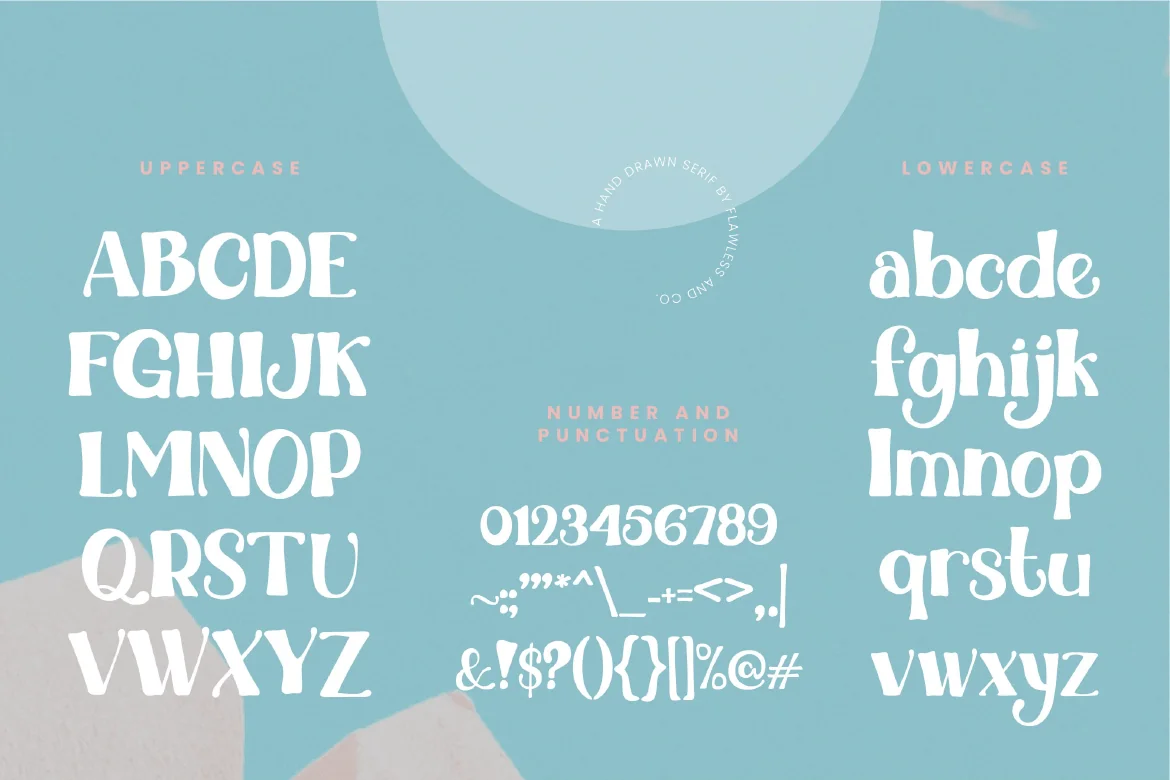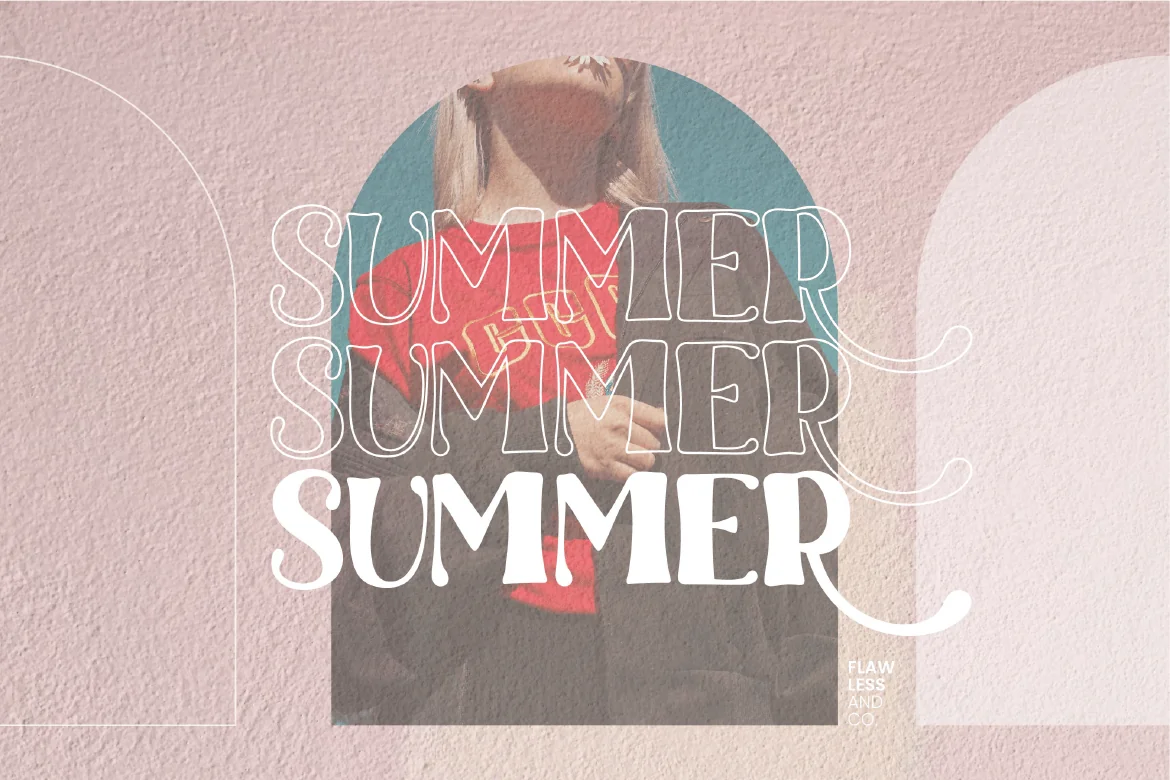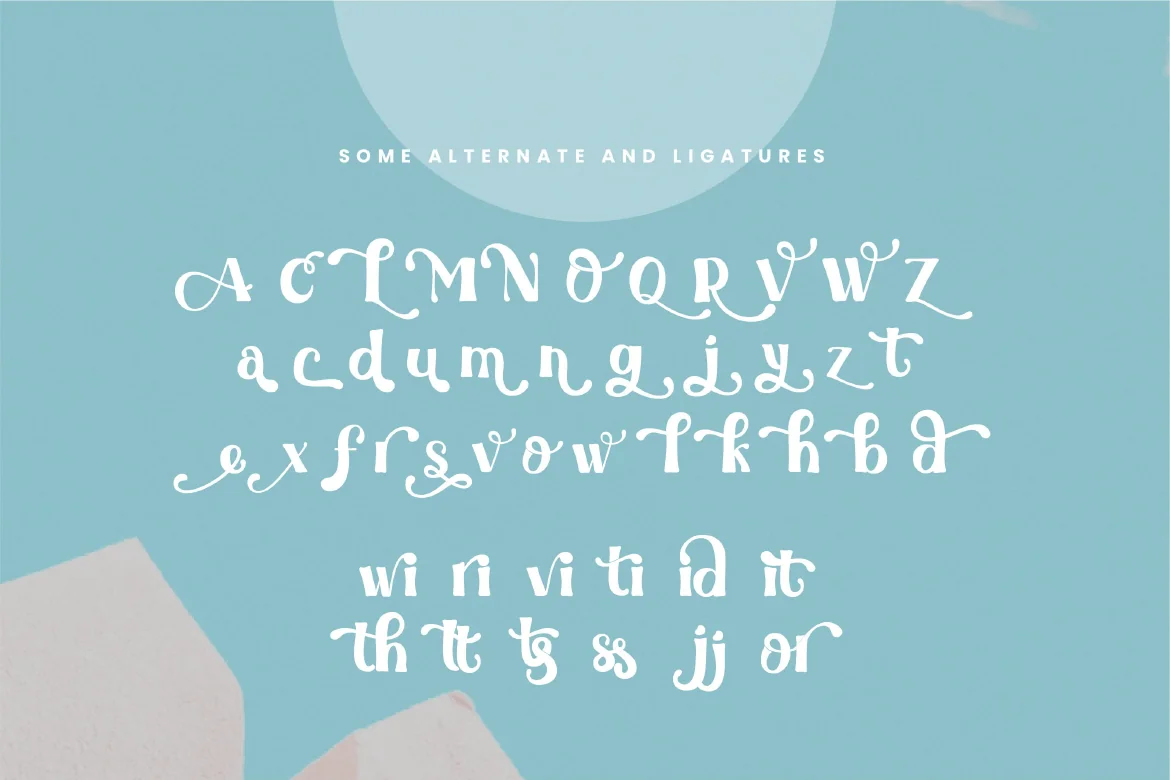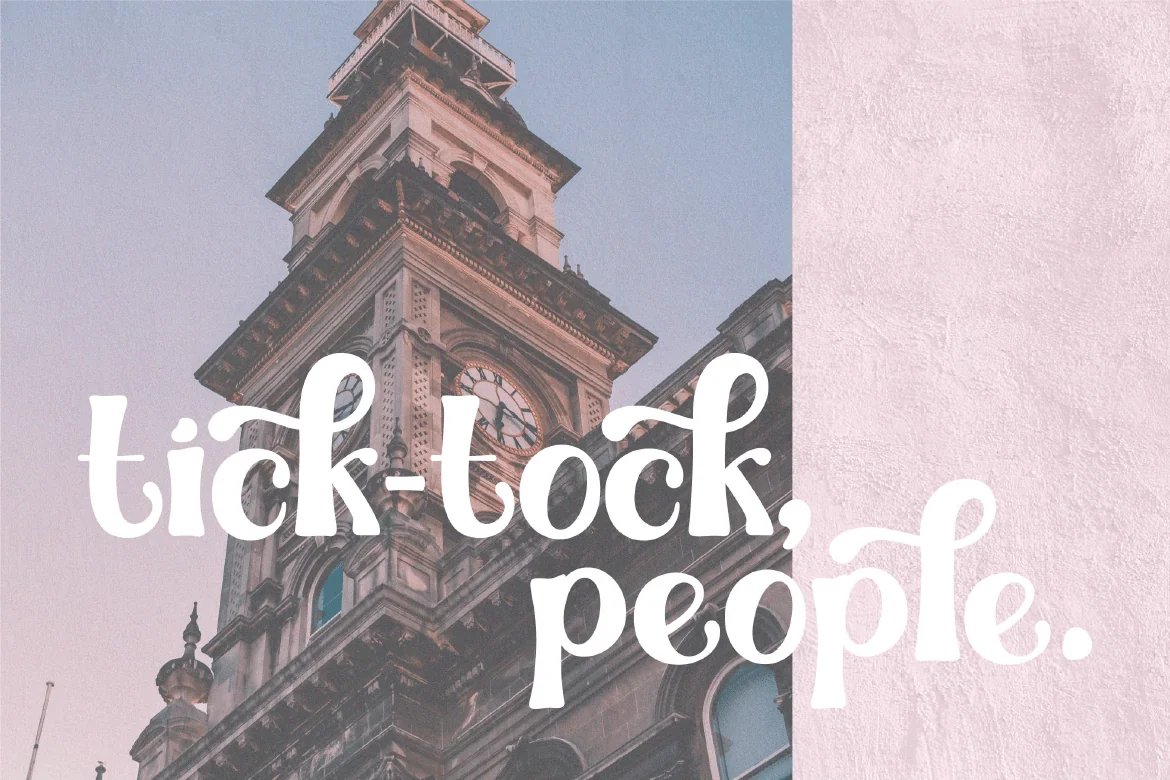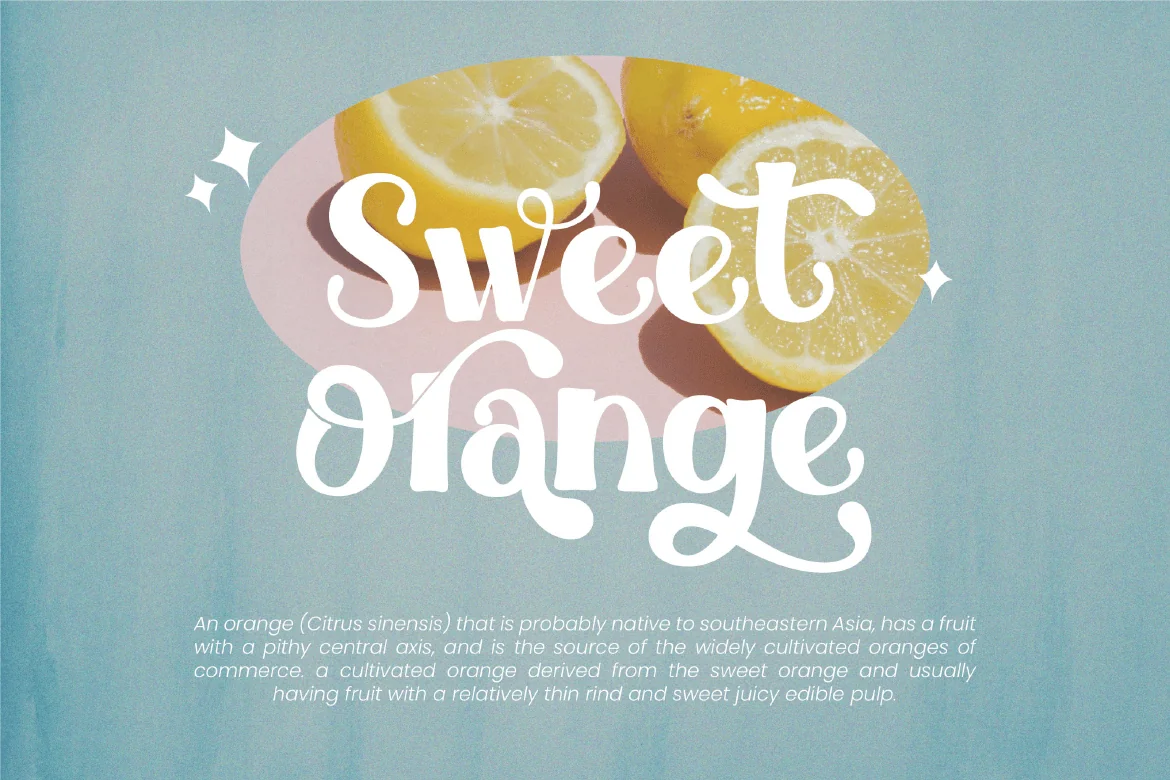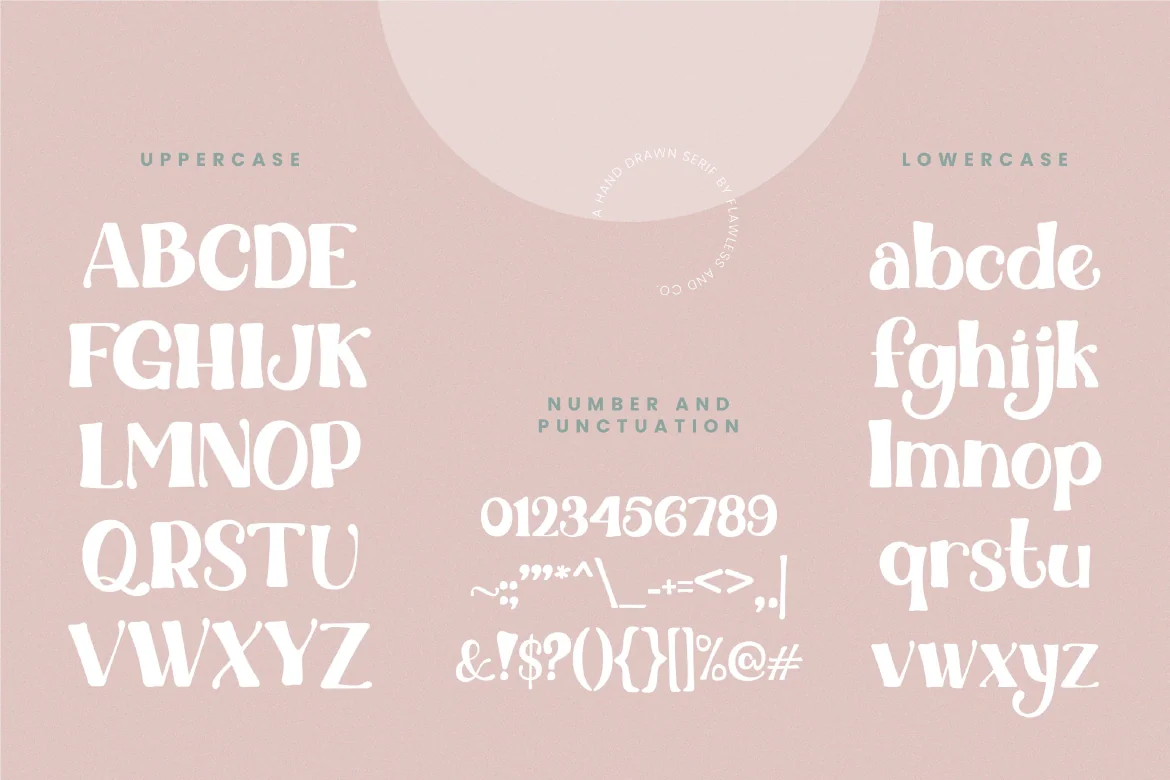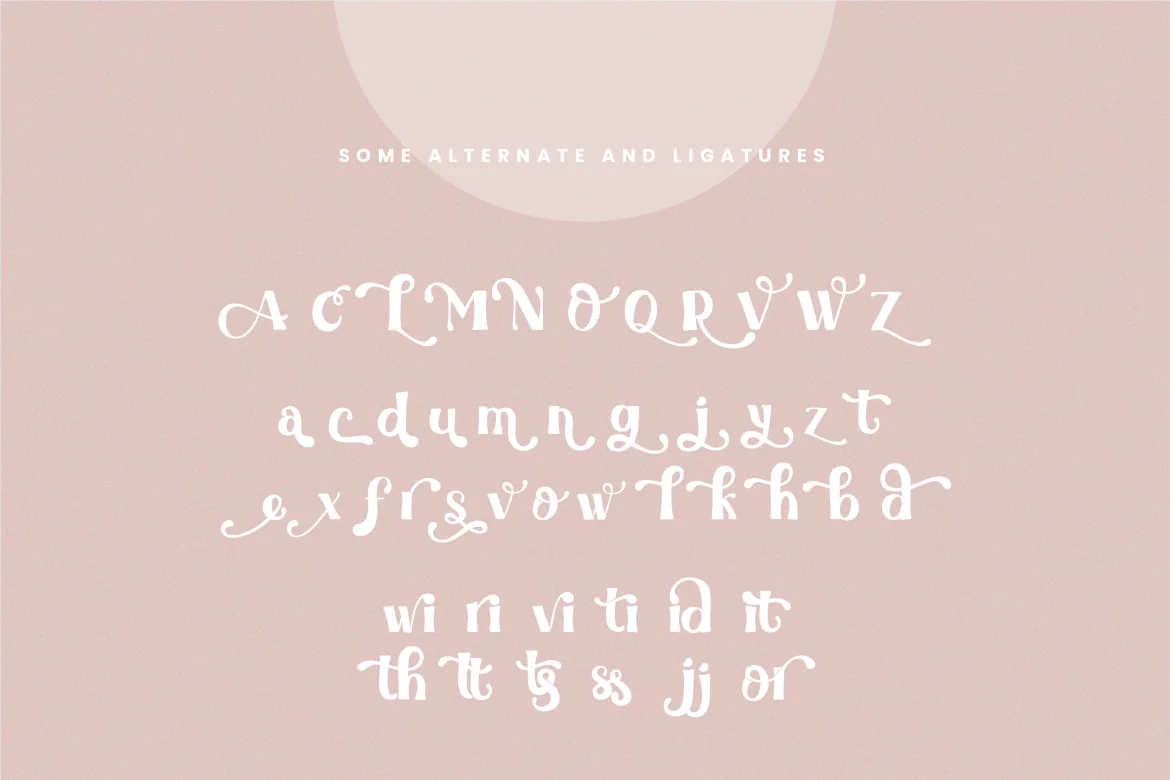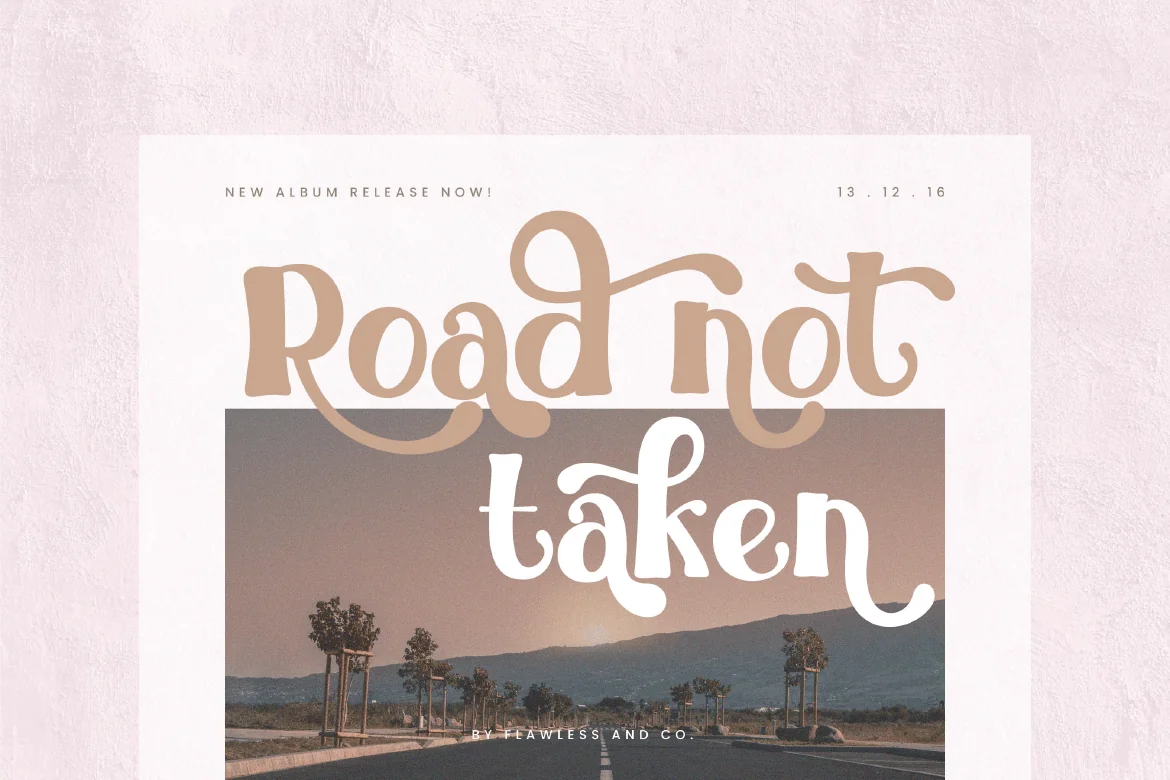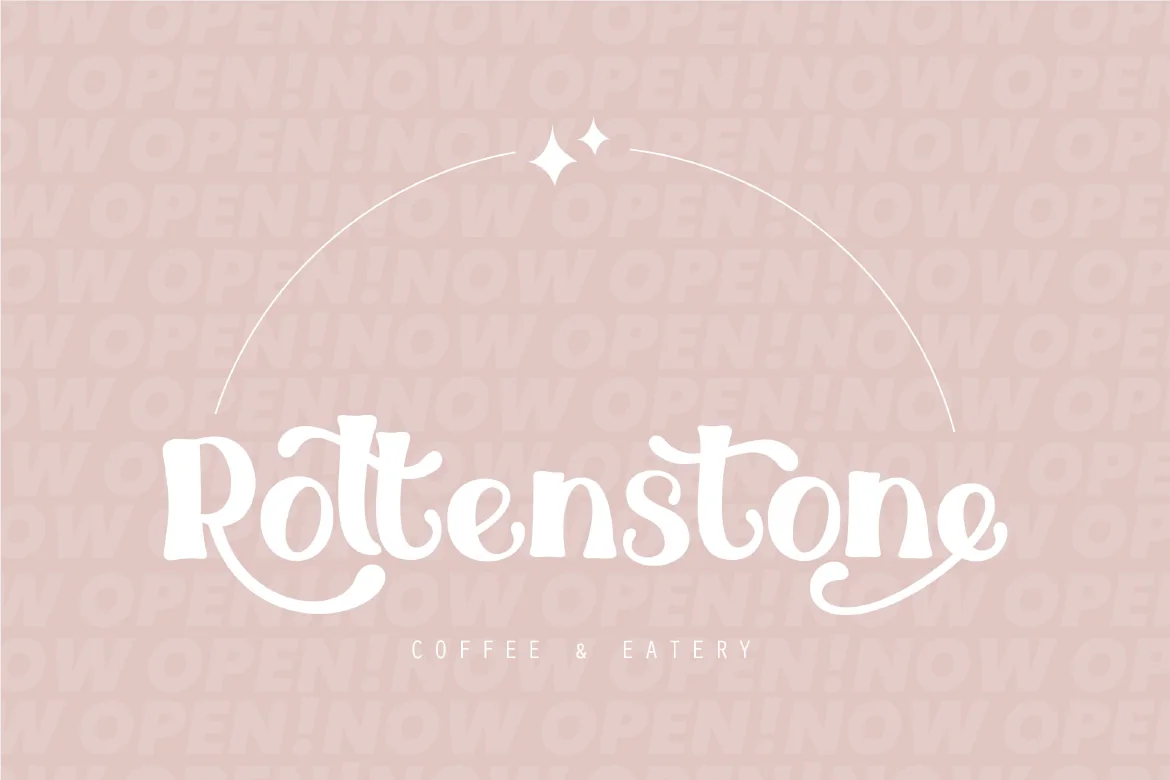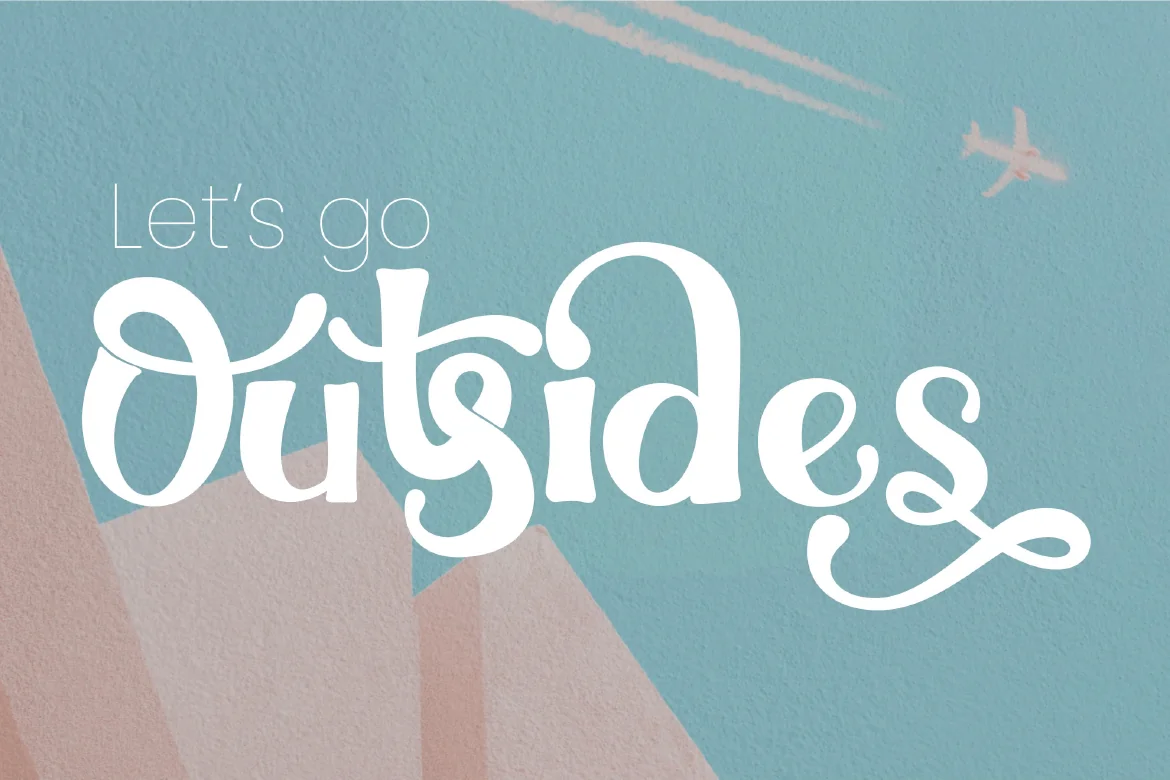
Adelaide – Sweet Retro Font
Introducing our New Sweet Retro font, this font suitable for branding, wedding invitation, logo, handcrafted,
Alternate Character